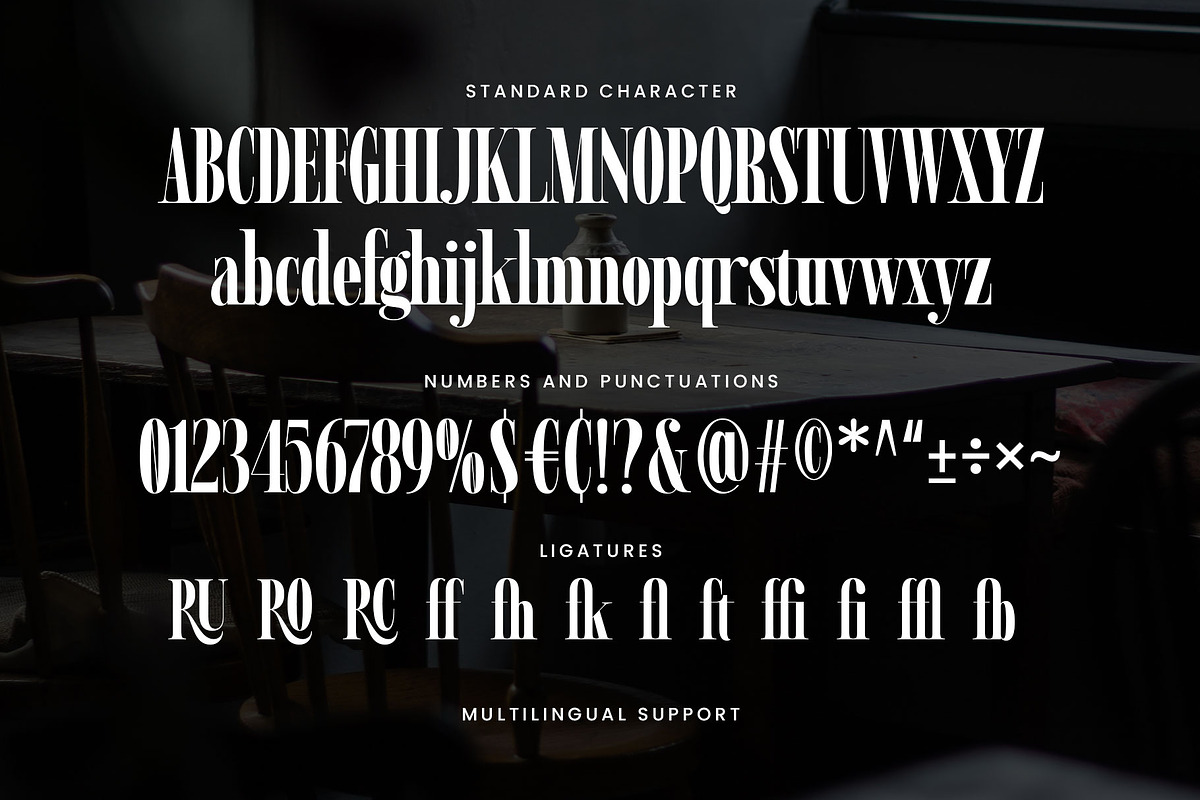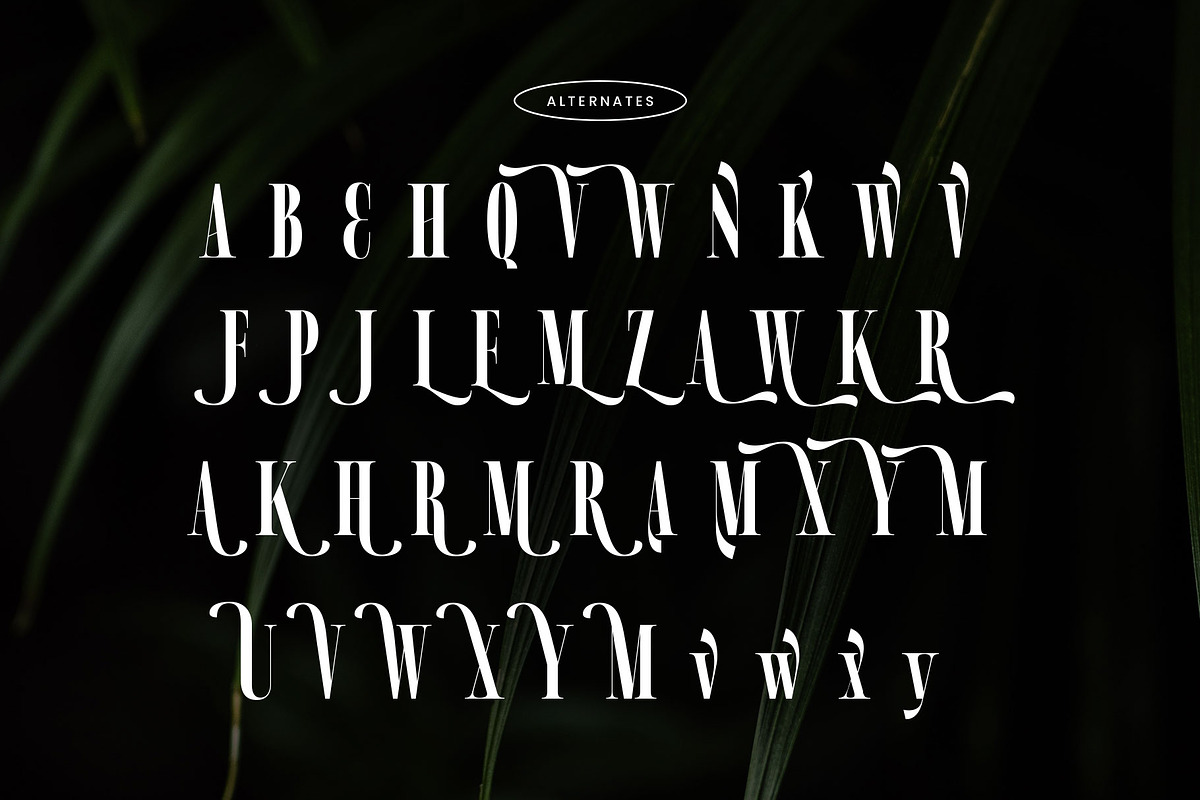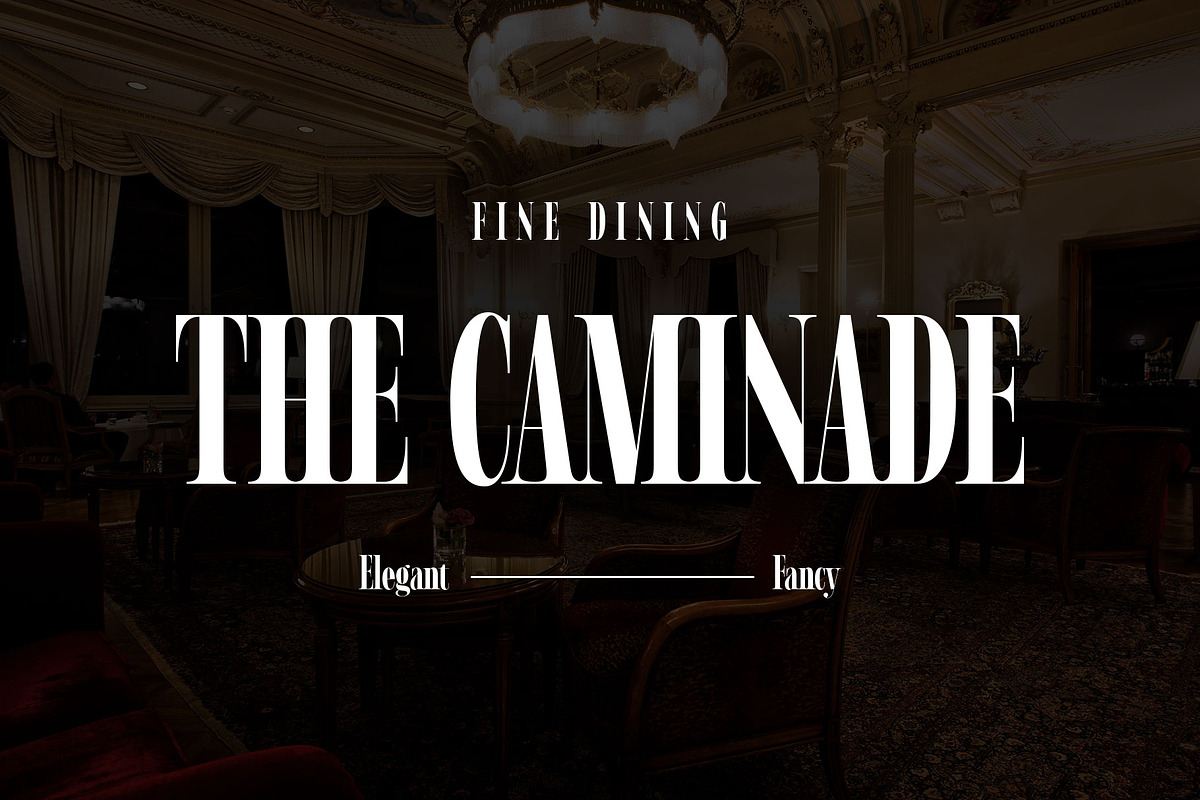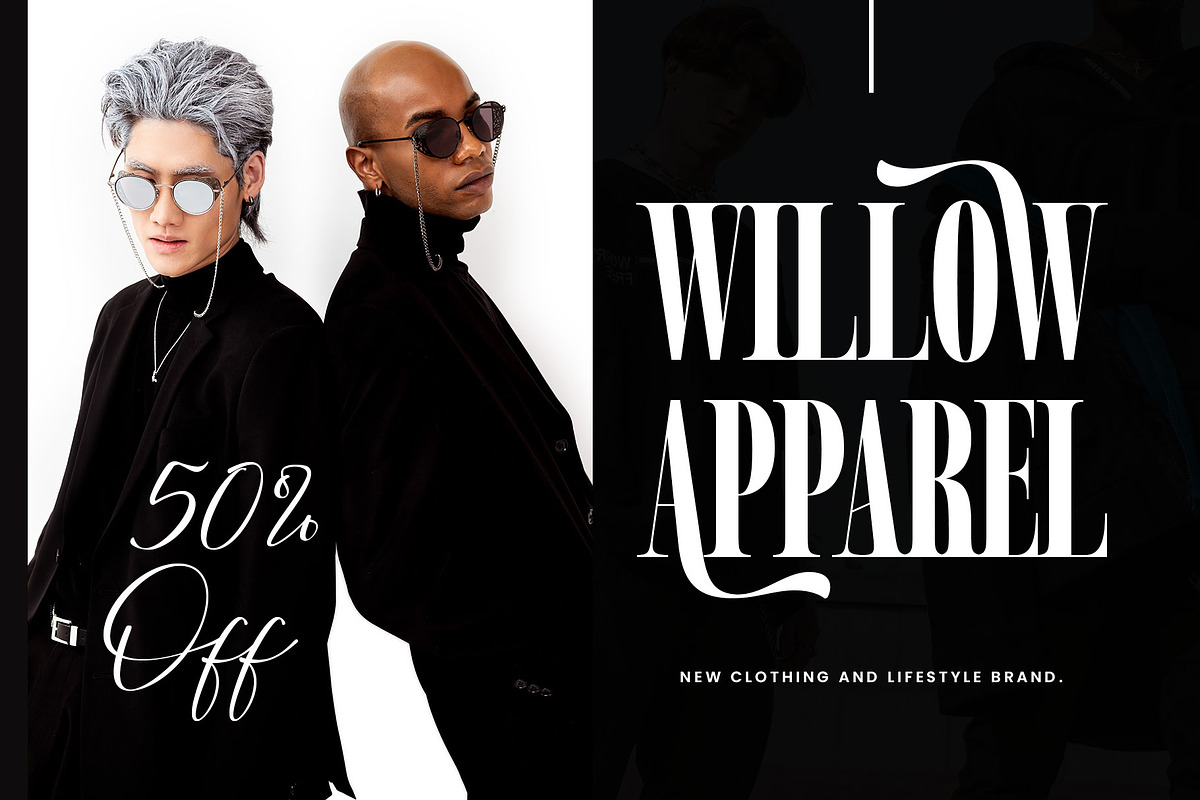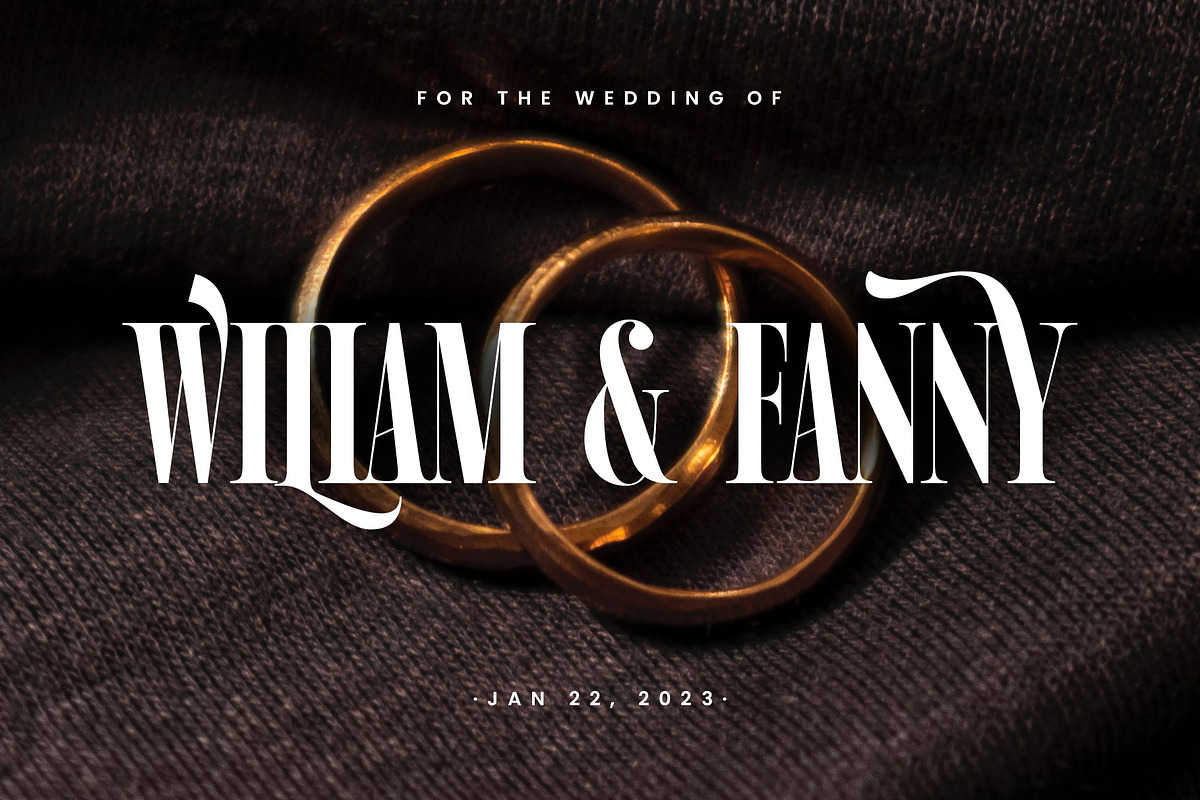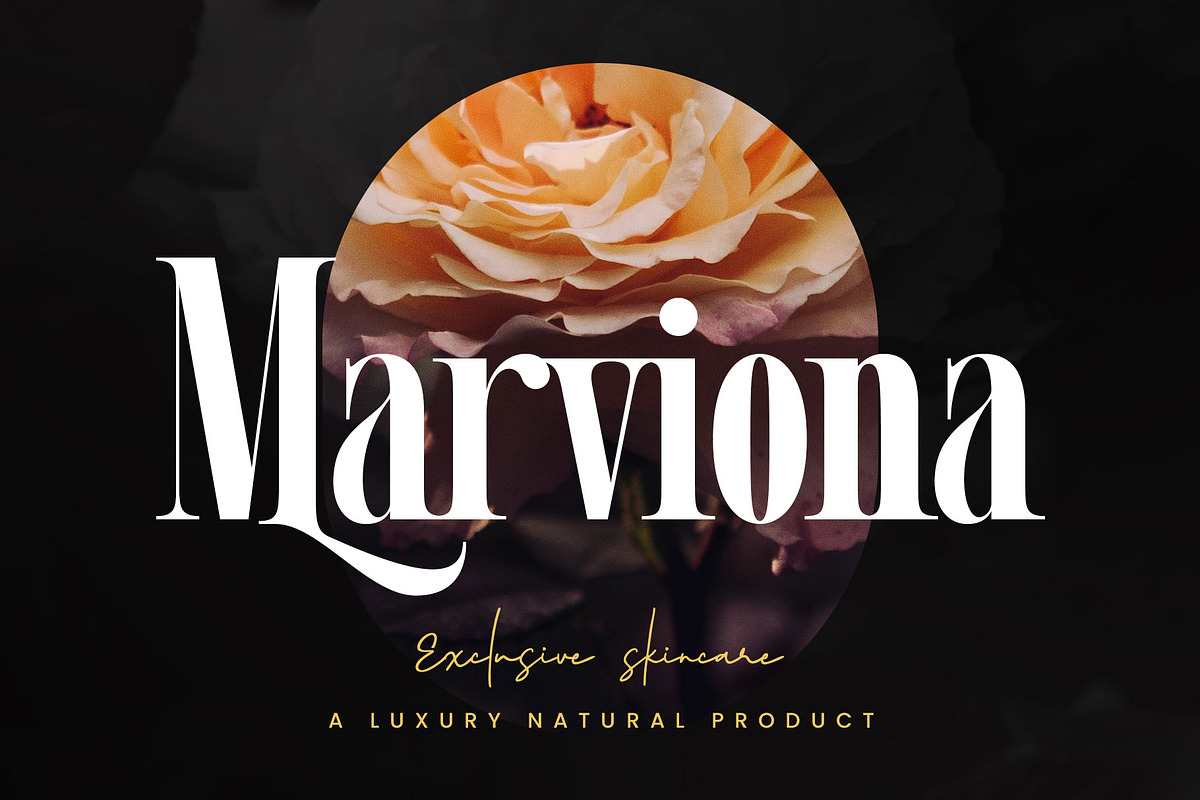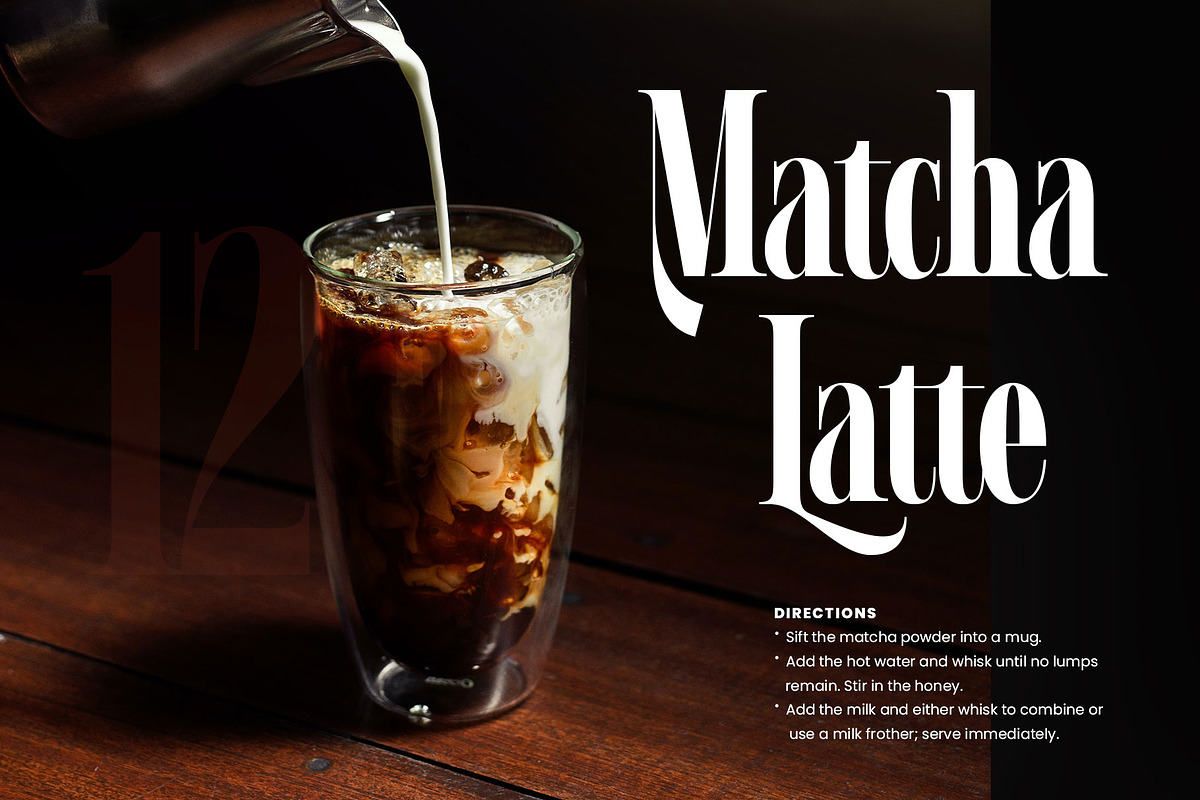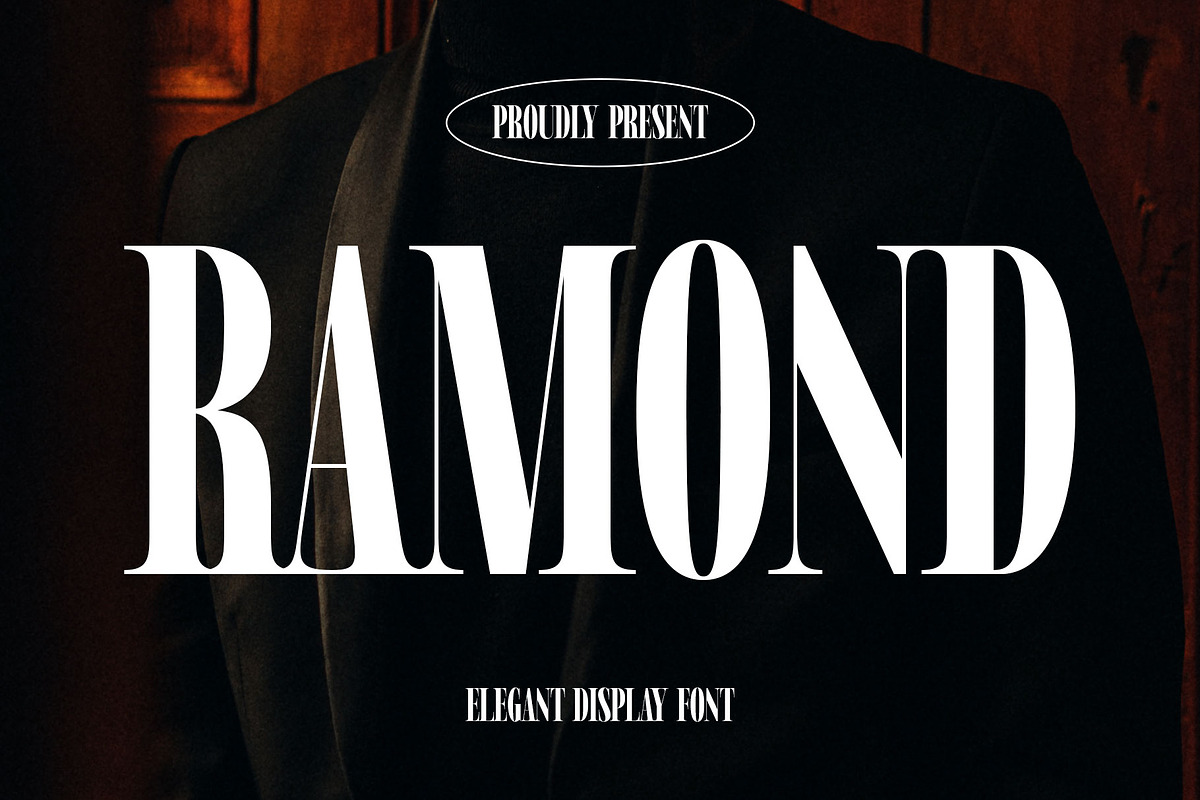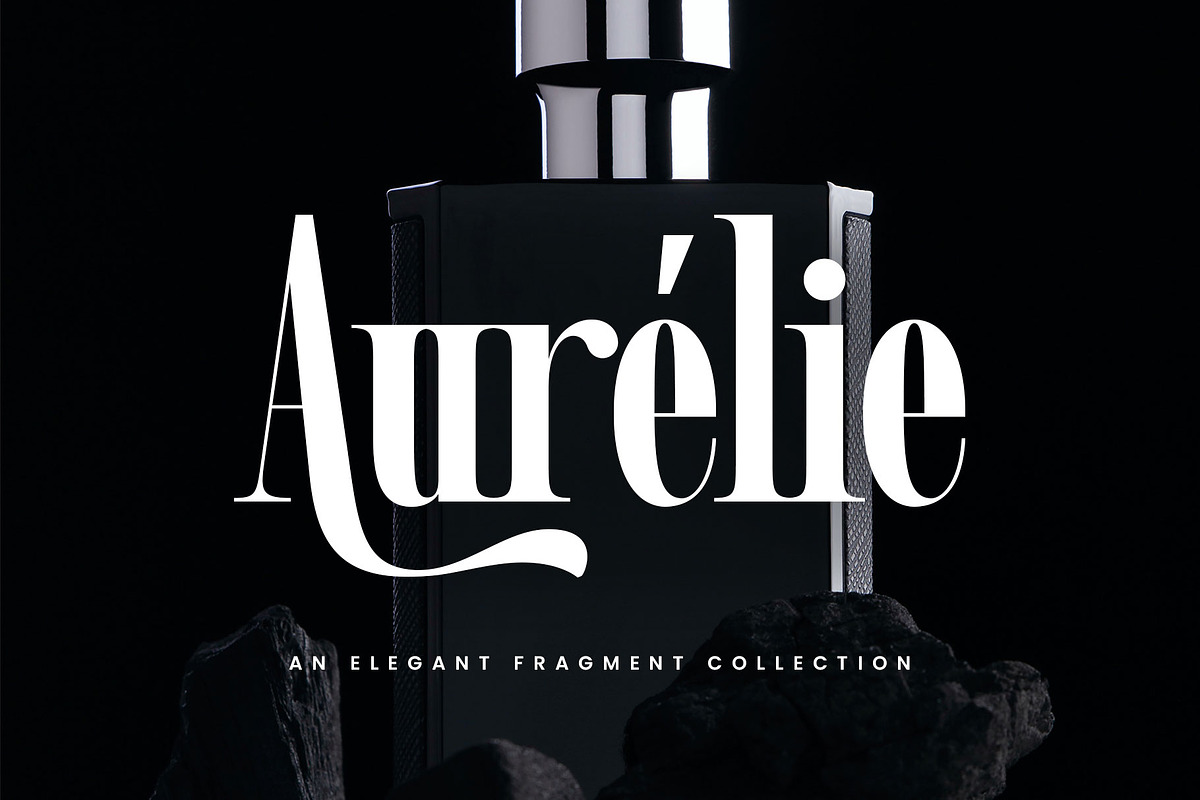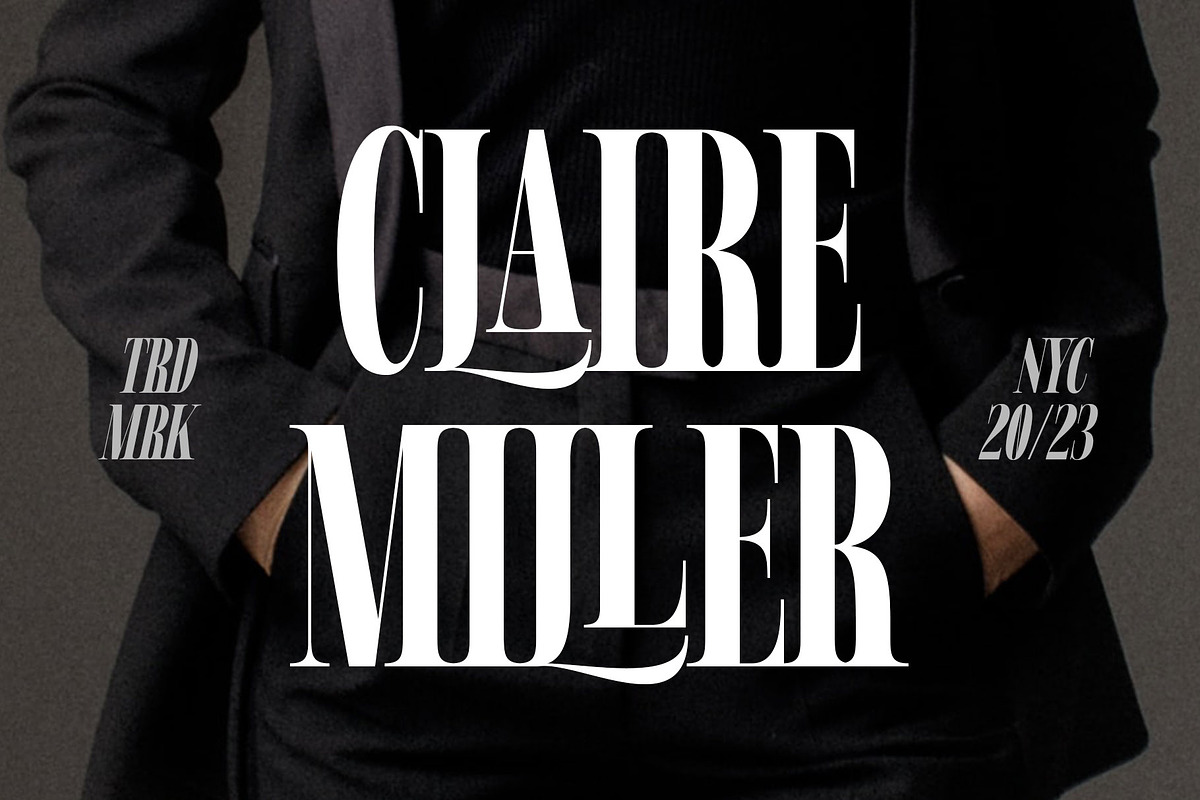
Ramond - Condensed Serif
Introducing Ramond - a bold and elegant display sans serif font perfect for your creative projects. Inspired by the 90s display fonts used in magazines and newspapers, Ramond exudes a sense of class and sophistication that will elevate any design.
With its condensed and bold style, Ramond is the perfect choice for headlines, display, magazine, and editorial design. It also works great for labels, logotypes, branding, movie titles, posters, and short quotes.
Font featured :
- Stylistic alternates
- Stylistic set 01-04